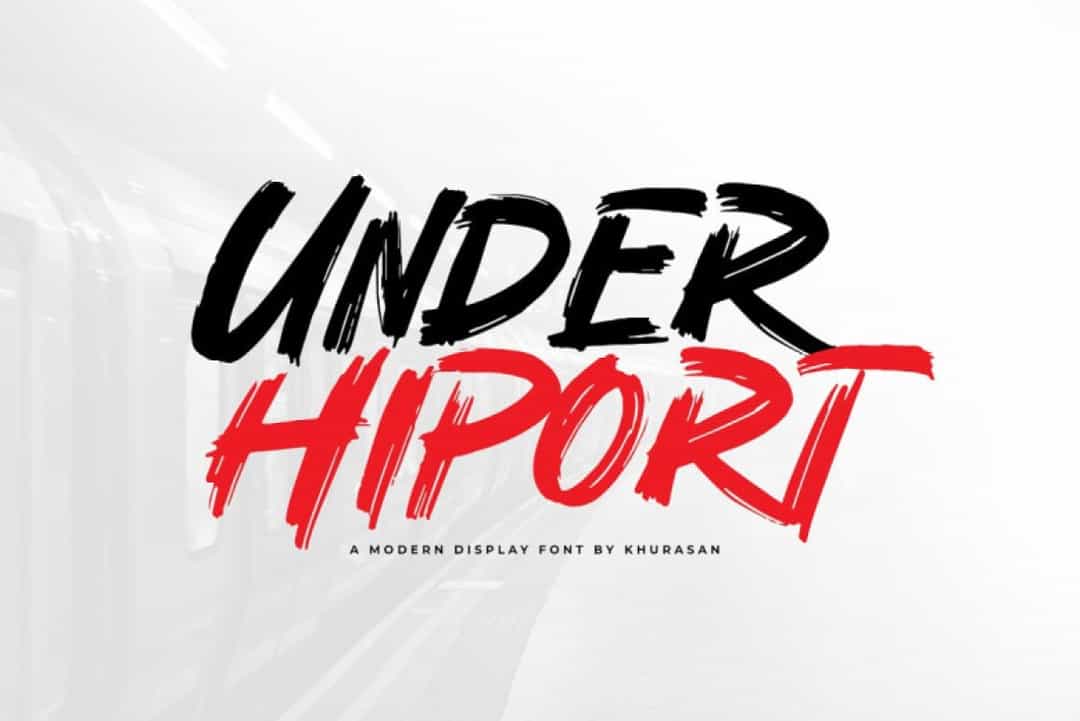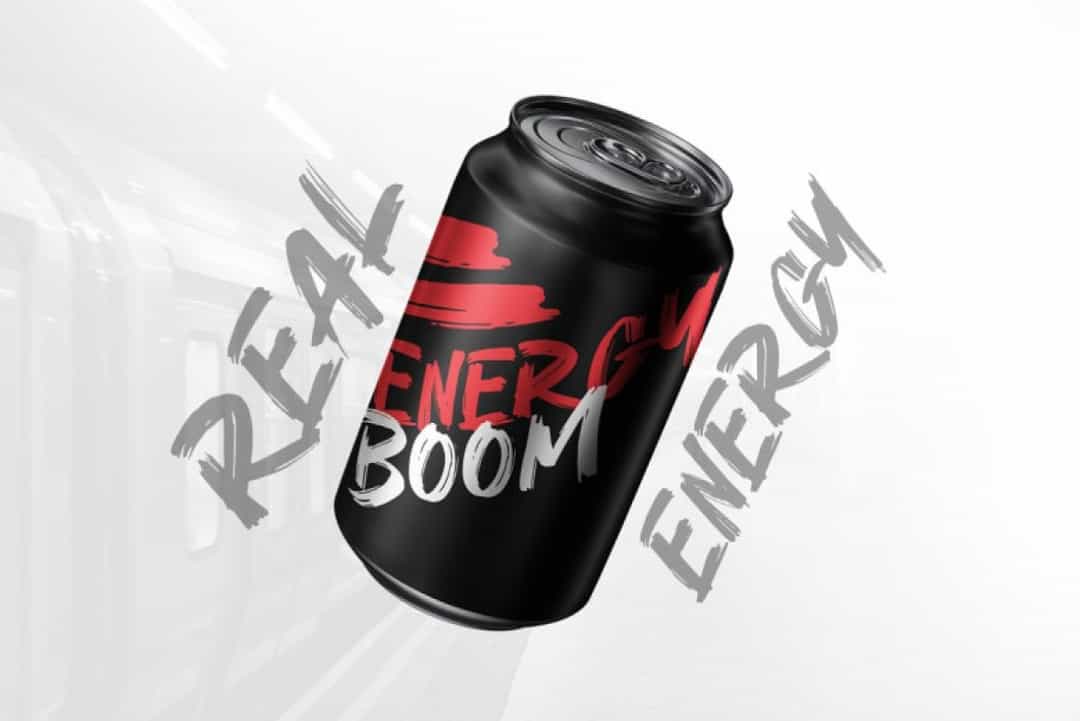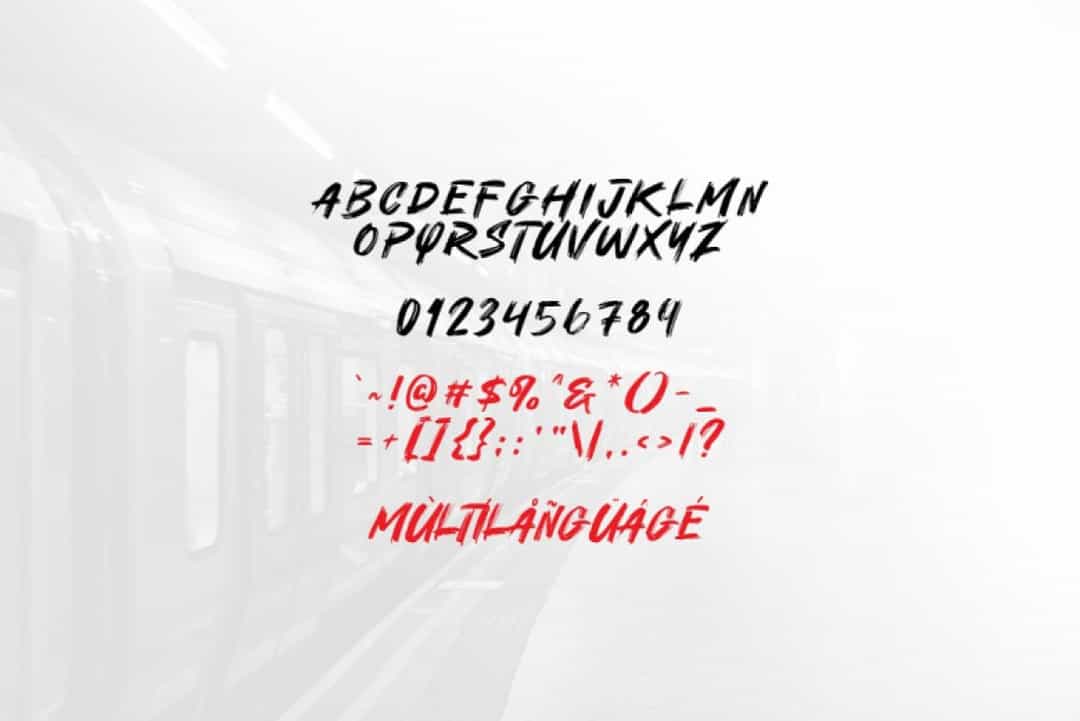
Under Hiport can be described as an eye-catching strong brush typeface ideal for posters, logos, books, magazines banners book covers and much more! Find this fun handwritten font and use it to craft stunning designs! This font pairs easily with many designs so include it into your ideas to see just how beautifully it stands out!